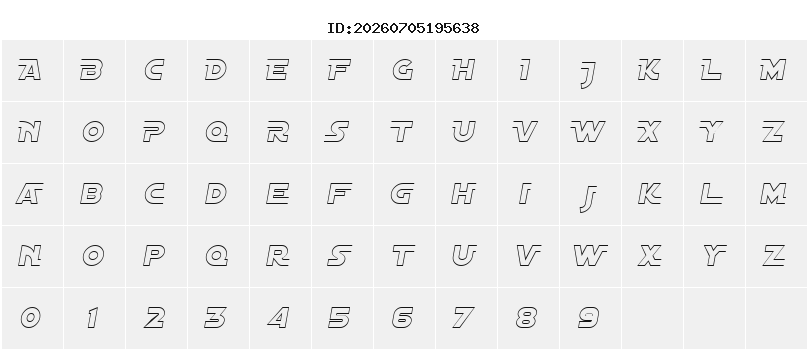
• Font Name: Distant Galaxy AltOutline
• Full Font Name: Distant Galaxy AltOutline Italic
About Distant Galaxy AltOutline.ttf
Distant Galaxy AltOutline.ttf is a modern, elegant sans-serif font designed for ultimate readability and visual harmony. Perfect for branding, headlines, web design, and print materials.